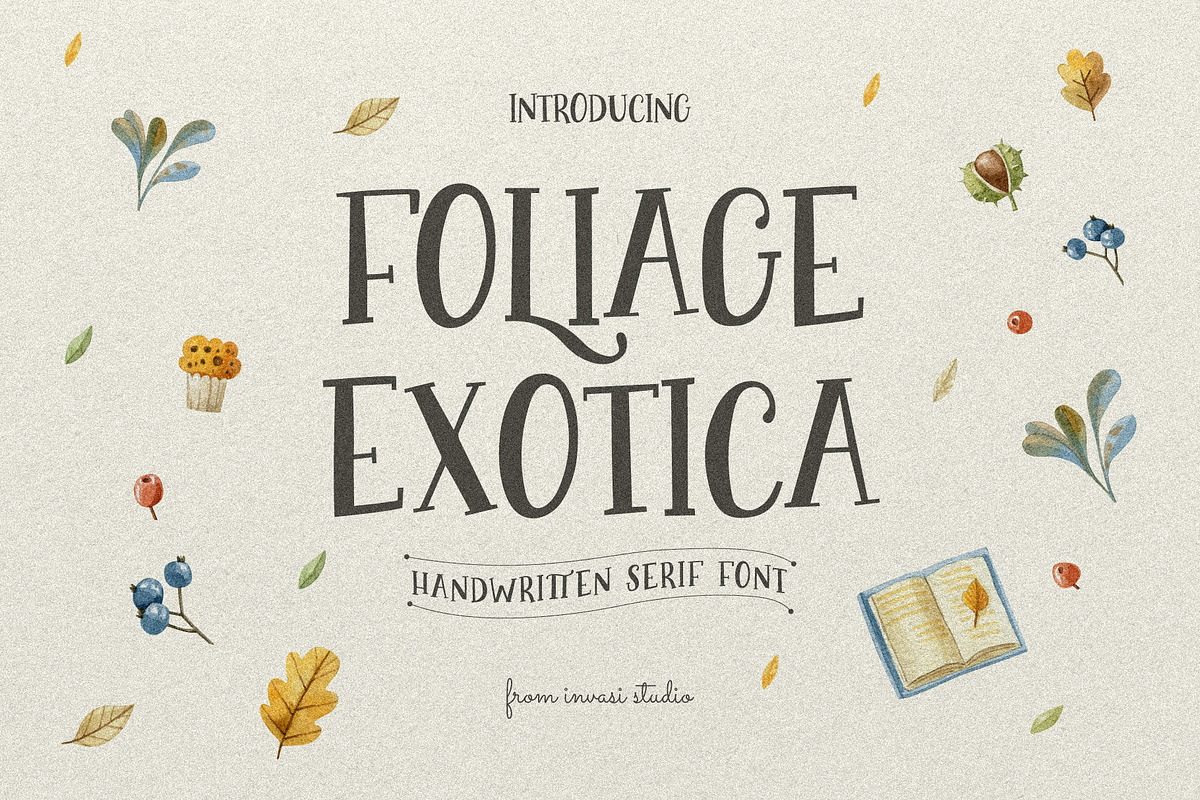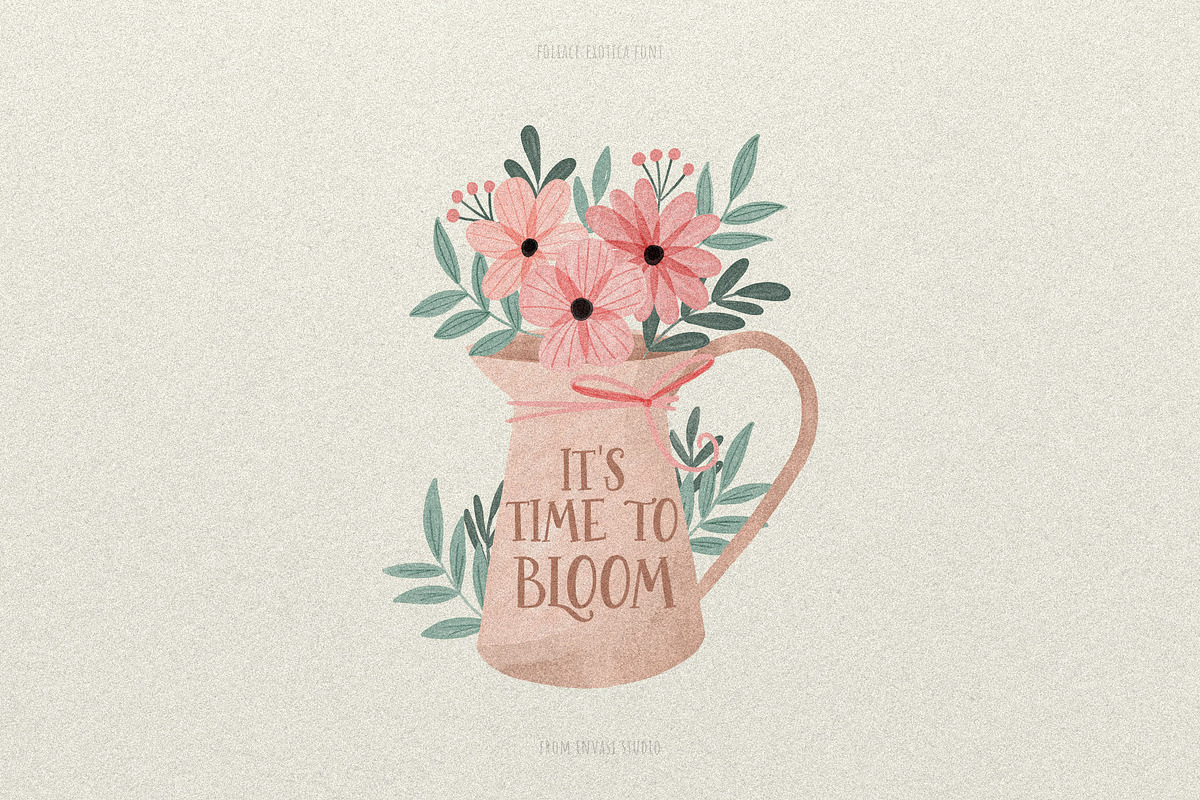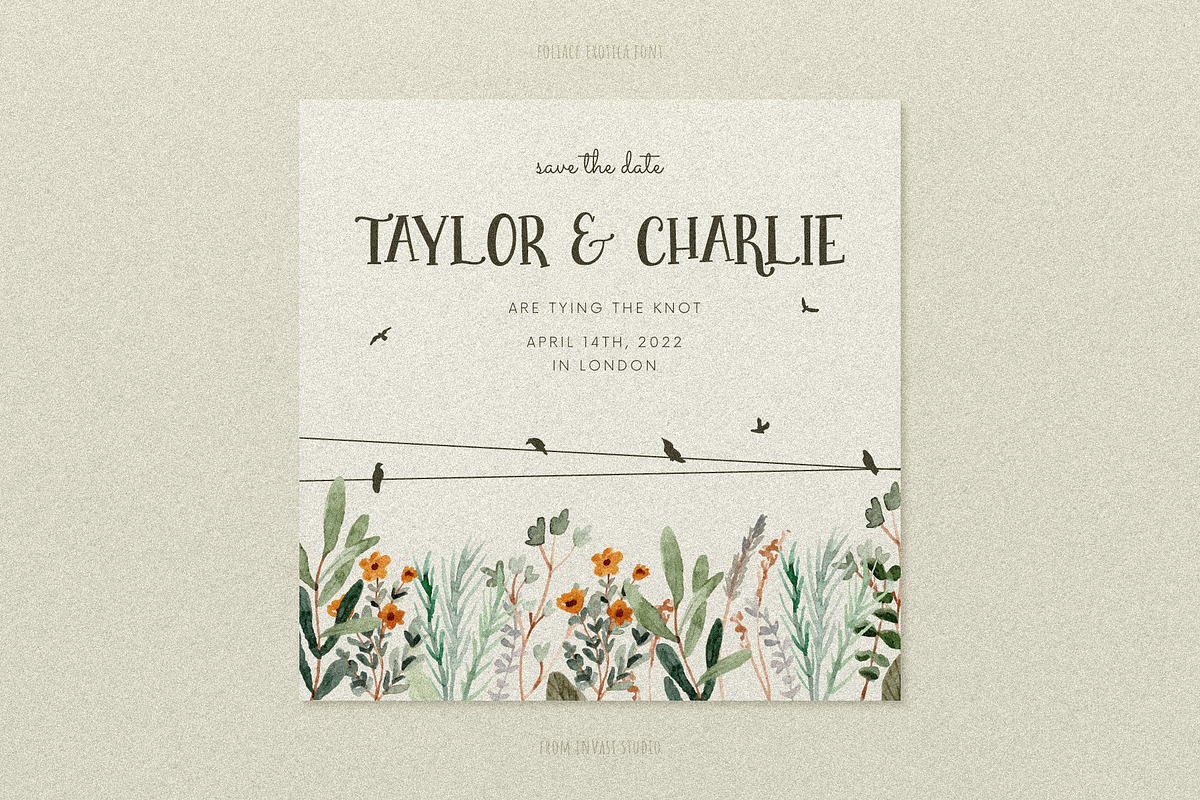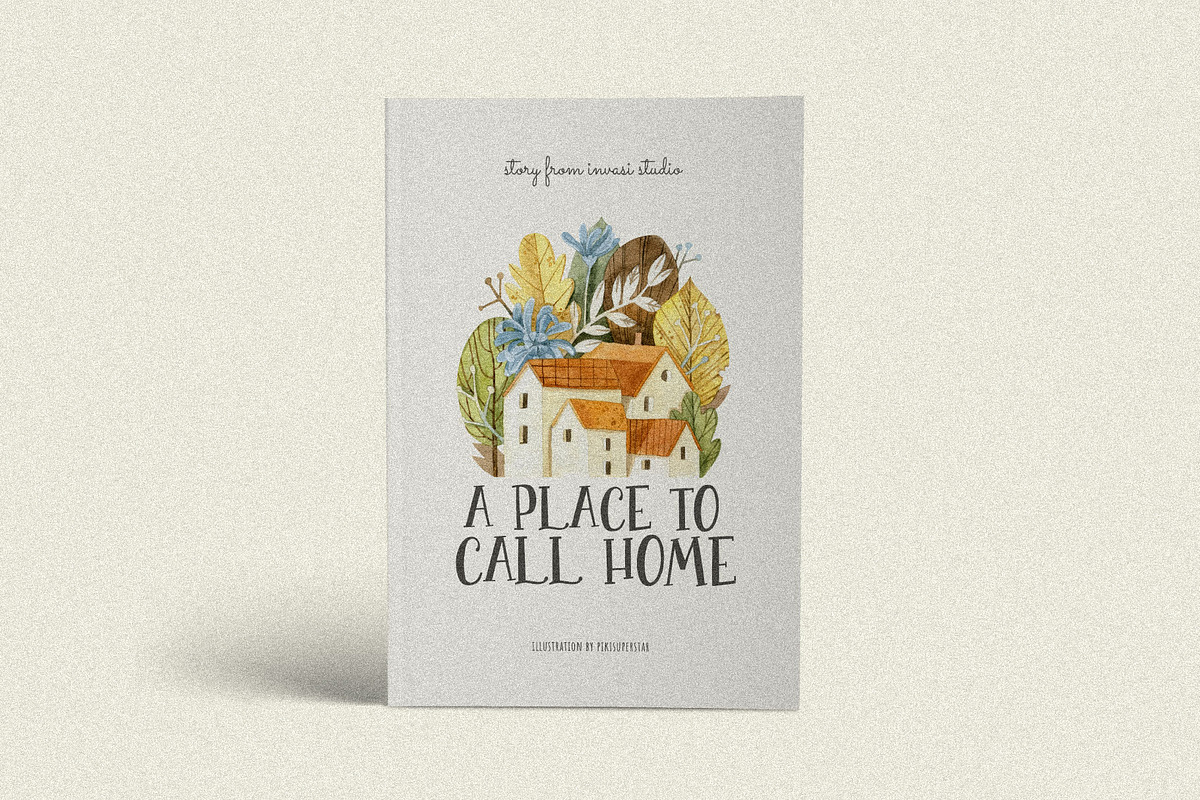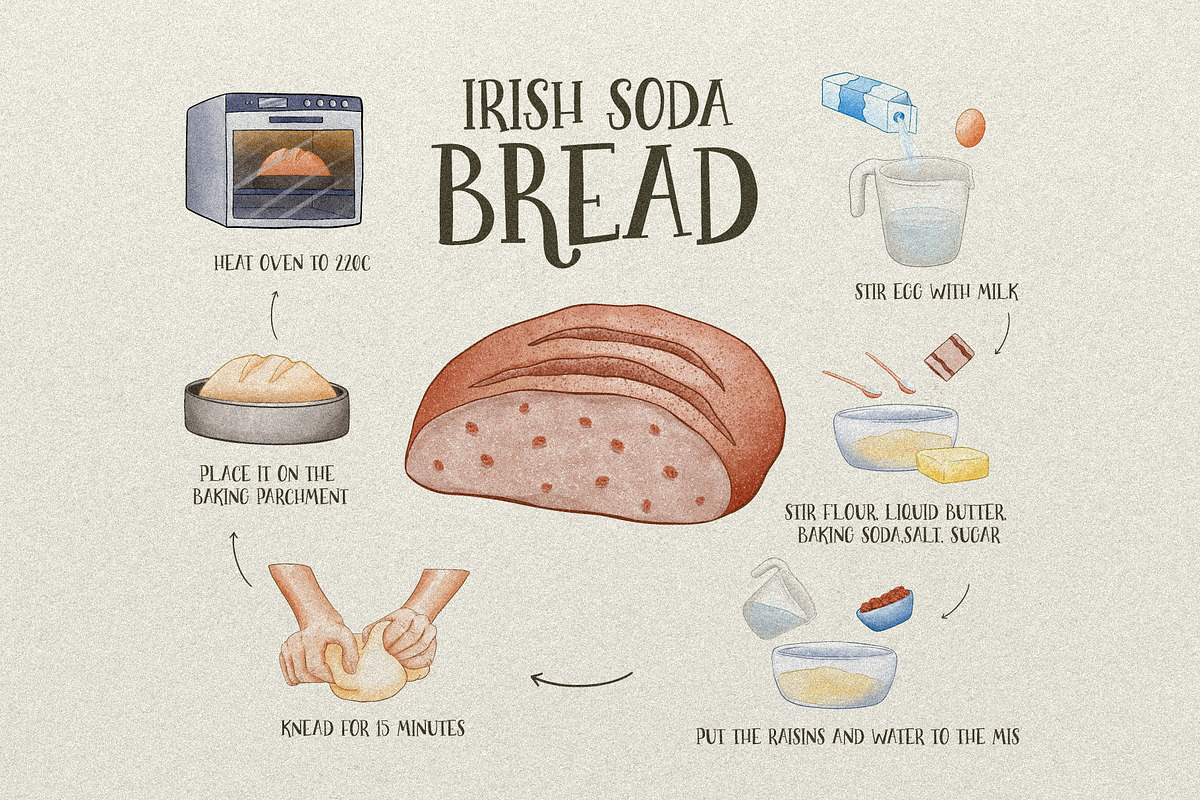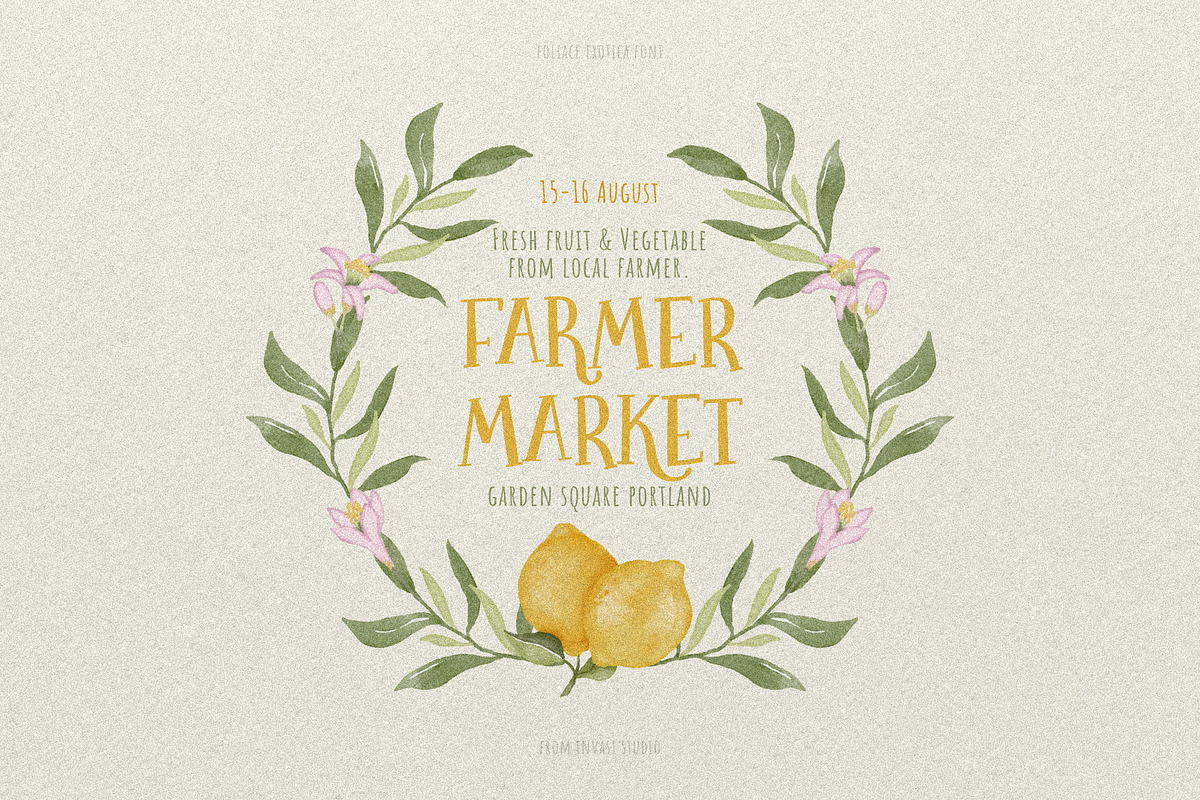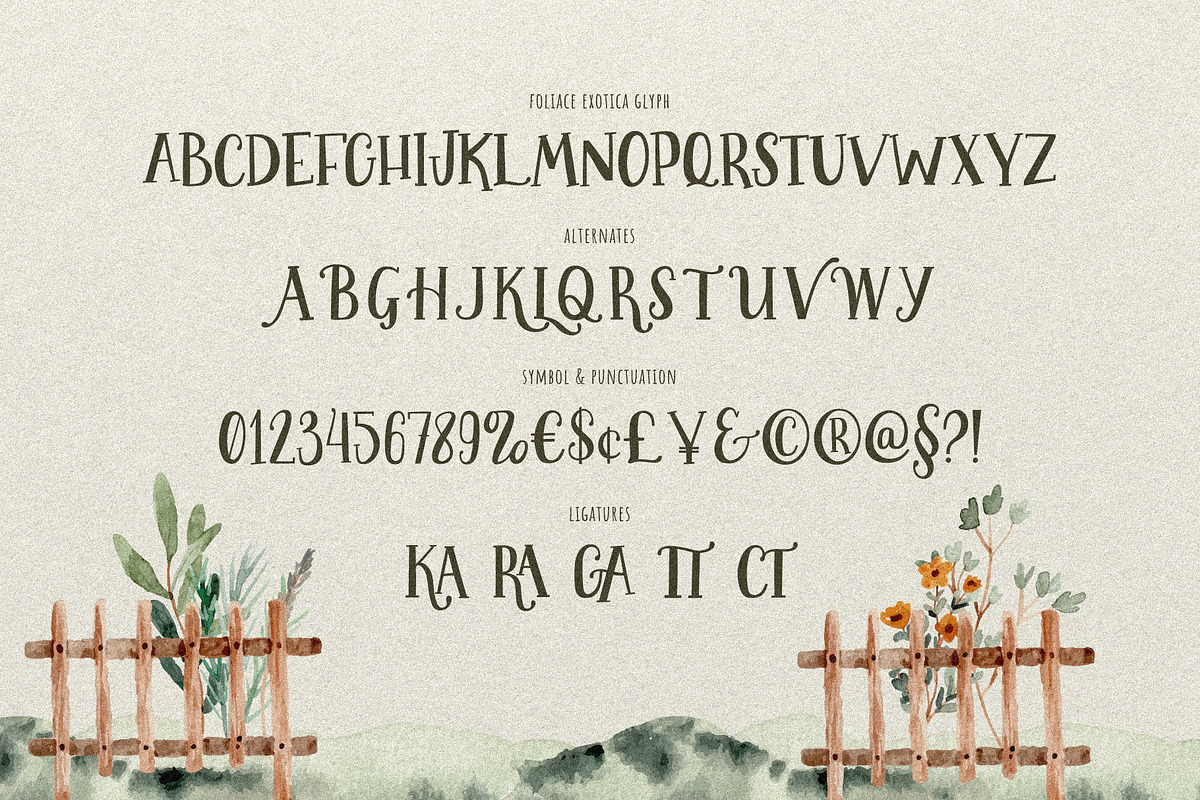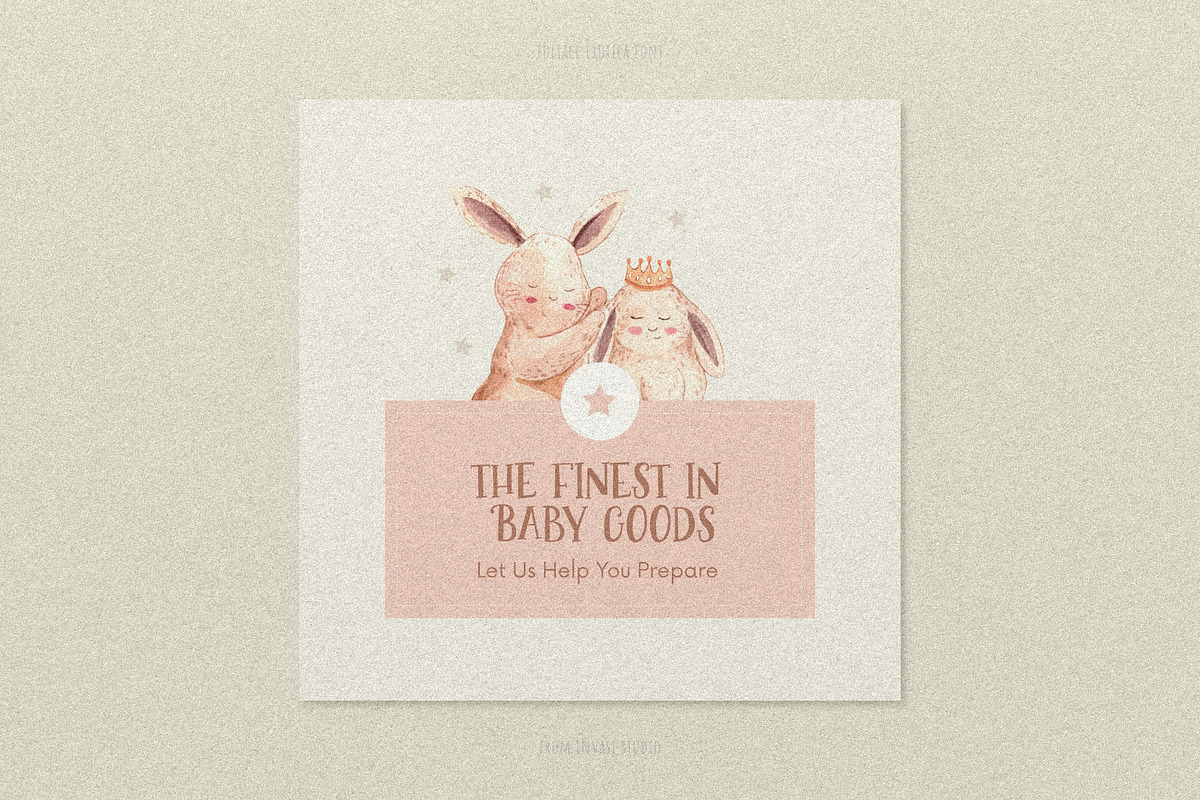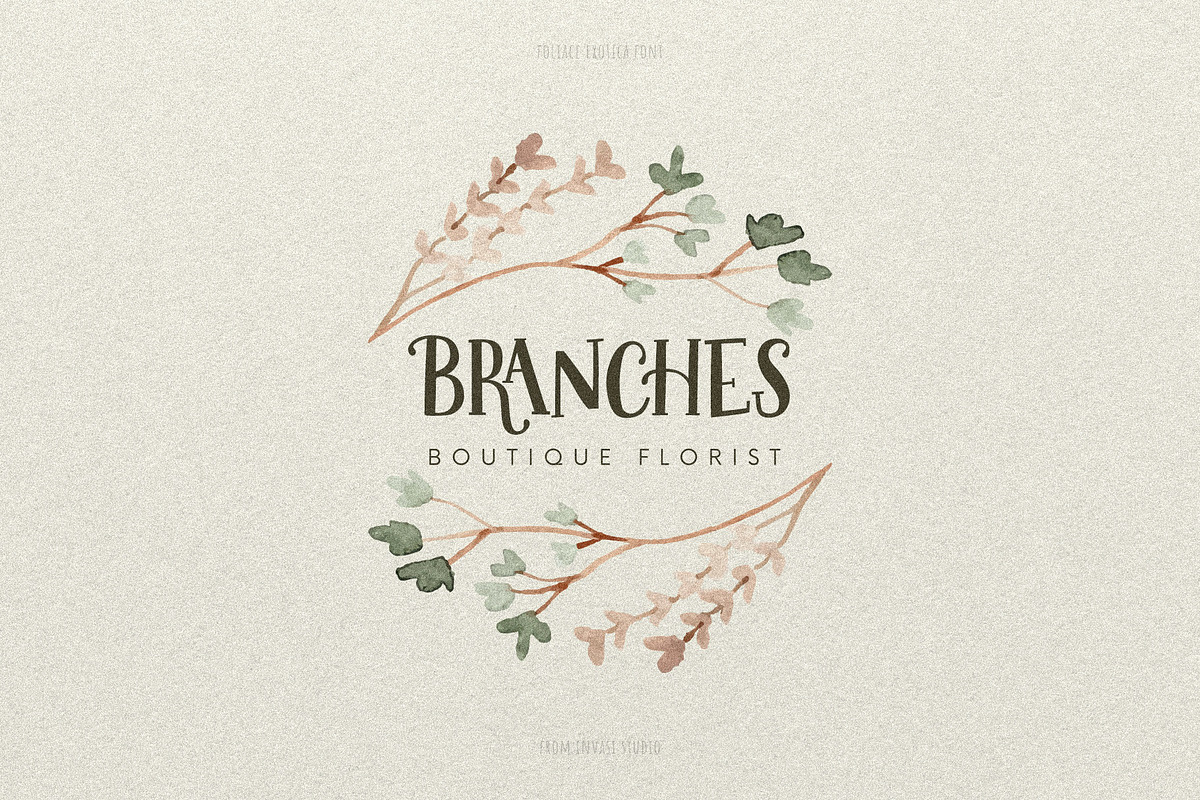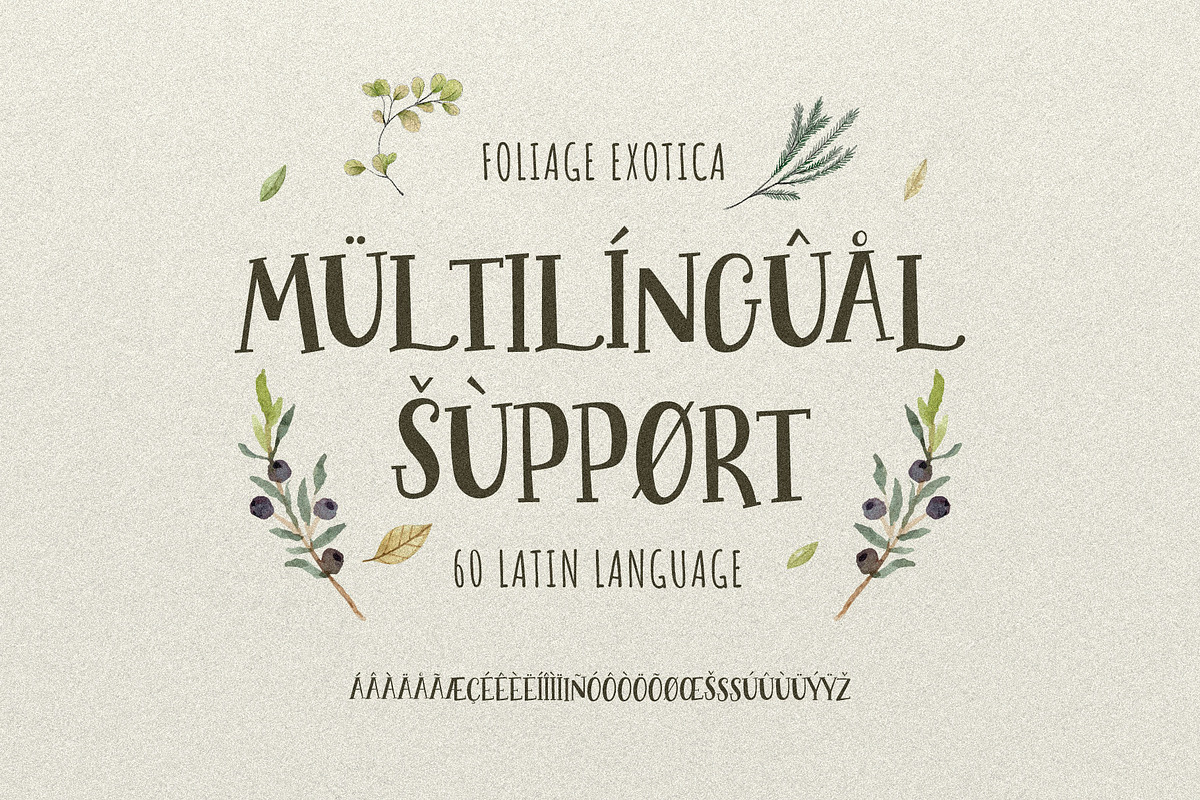
Foliage Exotica - Handwritten Serif
Foliage Exotica is a serif font that can add a playful touch to your project. It comes in a brush handwritten dreaming style. Foliage Exotica is perfect for casual types on greeting cards, illustrations, quotes, quaint branding, book covers, children's books, packaging, and more.
- Total 230 Glyph
- Alternates and Ligatures
- Multilanguage Supports 60+ Latin based languages